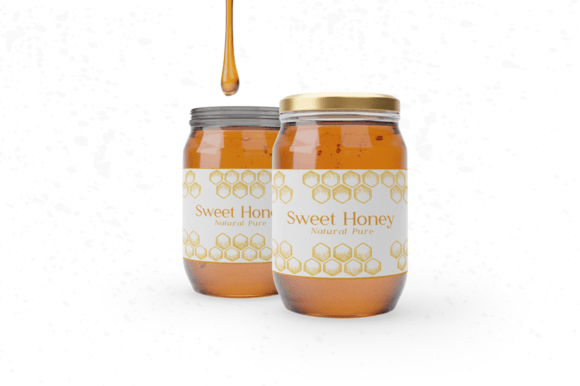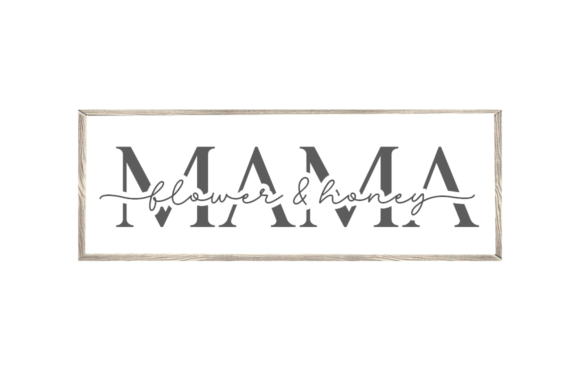
Flower & Honey Font
Flower & Honey font paired designed to complement each other perfectly. Together or apart, these fonts are ideal for adding a stylish, cheerful touch to your crafts. Flower & Honey is a PUA code which means you can access all the glyphs and swashes easily!